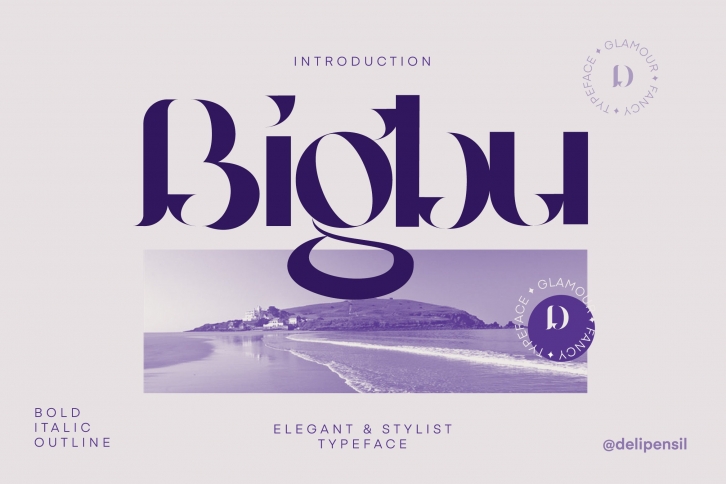
Bigbury is a modern display font with a vintage feel. Clean and a little bit quirky, this font is the perfect fit for all of your logos, branding, social media, and crafty DIY projects.